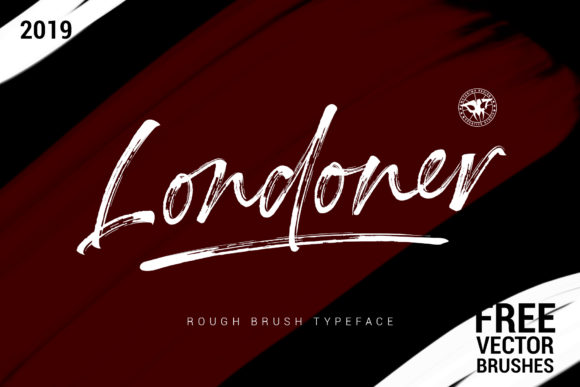
Introducing the Londoner Font: A Brushstroke Beauty for Your Creative Odyssey
Prepare to be captivated by the captivating allure of Londoner Font, an exquisite script font crafted with a touch of modern finesse. The brainchild of the talented motokiwo, this font exudes a captivating charm that will ignite your design projects with a vibrant spark.
Indulge in the delightful dance of Londoner's brushstrokes, each stroke imbued with a raw and ethereal energy. Experience the seamless flow of its curves, the graceful sweep of its tails, and the captivating rhythm of its letters. Londoner Font is not merely a font; it's a symphony of artistic expression, waiting to orchestrate harmony into your designs.
Unleash the boundless potential of Londoner Font. Let its versatile essence elevate your branding, packaging, and social media designs to new heights of sophistication. Craft enchanting invitations, heartfelt love letters, or captivating social media posts that will captivate your audience.
With Londoner Font, you're not just downloading a font; you're embarking on a creative journey where imagination knows no bounds. Its unique character will infuse your designs with a touch of elegance, a hint of playfulness, and a captivating charisma that will leave an unforgettable mark.
So, why settle for ordinary when you can embrace the extraordinary? Let Londoner Font be the brush that paints your creative vision into reality. Its beauty, charm, and versatility will transform your designs into captivating masterpieces, leaving a lasting impression on all who encounter them.